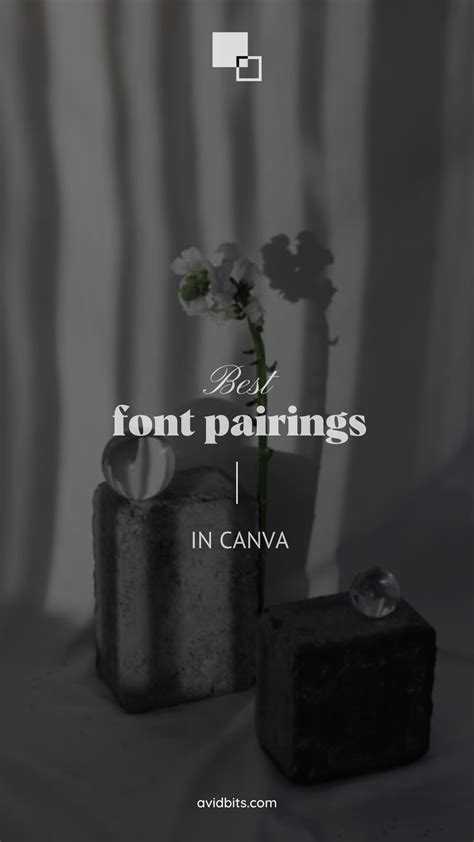
Unveiling Stunning Vintage Canva Font Pairings
Hey there, design enthusiasts! Ready to dive into the captivating world of vintage design ? Today, we’re going to explore the art of crafting stunning vintage looks using Canva , and the secret weapon? Fantastic font combinations ! Canva is a treasure trove of design possibilities, and when you pair the right fonts, you can transport your audience back in time, evoking feelings of nostalgia, elegance, and timeless charm. Finding the perfect font pairing can be tricky, but fear not! We’ll break down the best vintage Canva font pairings, giving you the knowledge and inspiration to create designs that are both beautiful and evocative. Get ready to unleash your inner vintage designer! We’ll cover everything from classic pairings to more unique combinations, and give you tips on how to use them effectively in your projects. Let’s get started, shall we?
Why Vintage Fonts Matter in Design
Okay guys, let’s talk about why vintage fonts are still such a big deal. In a world saturated with modern, sleek designs, vintage fonts offer a refreshing change of pace. They have a certain je ne sais quoi , a touch of character and history that instantly grabs attention. Vintage fonts are like a visual time machine, capable of transporting your audience to different eras and settings. They can evoke feelings of nostalgia, elegance, and even a bit of rebellion. The right vintage font can make your design feel authentic and trustworthy, a real asset when trying to connect with an audience. They can also add a unique personality to your brand. Think about it: a well-chosen vintage font can set you apart from the crowd, making you memorable and recognizable. The fonts themselves often carry their own stories, reflecting the design trends and cultural influences of their time. They tap into our collective memory, connecting with us on a subconscious level. Plus, vintage fonts are incredibly versatile. They can be used in a wide range of projects, from logos and branding materials to posters and social media graphics. Whether you’re designing for a retro-themed event, a classic product, or simply want to add a touch of timelessness to your work, vintage fonts can make a big difference. And that’s not all – they are also about the feeling of a piece, whether it’s a poster, a website banner, or a social media post, they evoke something special from the target audience.
These fonts have an innate ability to communicate a sense of history, authenticity, and enduring quality. It is really all about the vibe. Think of the classic Coca-Cola logo or the iconic branding of Harley-Davidson. These brands have successfully used vintage fonts to create a strong sense of identity. By using vintage fonts, you can tap into the power of the past and create designs that resonate with your audience on a deeper level. Now, let’s get into the specifics of how to choose and use these fonts effectively. We’ll explore the best vintage Canva font pairings, so you can start creating amazing designs. So, let’s unleash your inner vintage designer and create something truly special. Let’s get you ready to create stunning designs that will transport your audience through time. Let’s create some awesome designs!
Top Vintage Canva Font Pairings
Alright, let’s get into the good stuff – the actual font pairings ! Here are some of the best vintage font combinations you can use in Canva to achieve that perfect retro vibe. I’ll include some specific font recommendations and tips on how to use them effectively. Remember, the key is balance and contrast. You want fonts that complement each other while still being distinct. This will make your text readable and visually appealing. Here are some of my favorite pairings:
1. Playfair Display & Open Sans : The Classic Duo
• Playfair Display is a beautiful, high-contrast serif font that exudes elegance and sophistication. It’s perfect for headlines and titles. Its classic appearance will bring an air of authority to your vintage designs. Think of it as the star player in your design team.
• Open Sans is a clean, modern sans-serif font that provides excellent readability for body text. It is incredibly versatile. It will provide the necessary foundation for your vintage-themed designs.
How to Use Them : Use Playfair Display for your headlines and titles to grab attention and Open Sans for your body text to ensure readability. This combo is great for posters, invitations, and any design where you want to emphasize both style and clarity. It’s a simple pairing that always works well.
2. Roboto Slab & Montserrat : Bold and Modern Vintage
• Roboto Slab is a sturdy, slab-serif font with a retro feel. It’s a great option for headlines and subheadings, offering a strong visual impact.
• Montserrat is a geometric sans-serif font with a clean and modern aesthetic. It provides excellent readability for body text and is perfect for creating a contrast.
How to Use Them : Use Roboto Slab for titles to create a strong vintage impression and Montserrat for the body text to achieve a modern touch. This combination will give your design a bold, yet balanced look, great for branding and promotional materials.
3. Great Vibes & Lato : The Romantic Touch
• Great Vibes is a beautiful, elegant script font that evokes feelings of romance and nostalgia. It is perfect for adding a touch of personality to your designs. It is the perfect choice for a vintage touch.
• Lato is a clean and friendly sans-serif font that is highly readable and versatile. It is a fantastic choice to pair with Great Vibes.
How to Use Them : Pair Great Vibes for titles or call-out phrases with Lato for body text to create a design that feels both romantic and approachable. Perfect for wedding invitations, greeting cards, and any project that needs a touch of charm.
4. Raleway & Josefin Sans : Simple and Versatile
• Raleway is a modern, sans-serif font that works well for a wide range of design projects. It’s clean, elegant, and versatile.
• Josefin Sans is a geometric sans-serif font inspired by the Art Deco style, adding a vintage feel to your design.
How to Use Them : Use Raleway for headlines and Josefin Sans for body text to create a clean, modern vintage look. This is a very versatile combination, perfect for websites, posters, and social media posts. The great advantage of this pairing is its adaptability.
5. Anton & Open Sans : The Bold Statement
• Anton is a condensed, bold sans-serif font with a strong impact, perfect for grabbing attention in headlines.
Conclusion: Embrace the Vintage Vibe!
Alright, design buddies! That’s a wrap on our exploration of vintage Canva font combinations ! I hope you’re feeling inspired and ready to unleash your creativity. Remember, the key to successful vintage design is understanding the history, embracing the aesthetics, and experimenting with different pairings. Now you have all the tools you need to create designs that stand out and evoke that classic charm. Have fun, be creative, and most importantly, let your imagination run wild! With Canva’s ease of use and the right font pairings, the possibilities are endless. Keep practicing, experimenting, and refining your skills, and you’ll be creating stunning vintage designs in no time. So go forth and create some beautiful, timeless designs. Happy designing! I hope this helps you create some amazing vintage designs! Have fun, and keep creating!